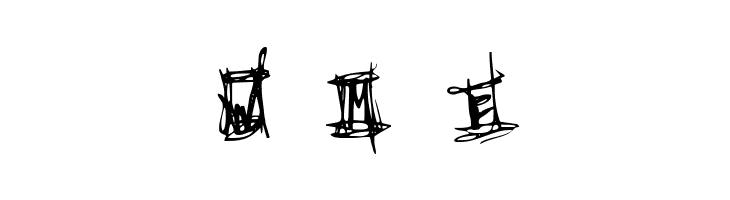
A segmented, digital-style font inspired by LED displays.
A bold, chiseled font with sharp, irregular strokes and a rugged appearance.
A bold, rugged font with angular, hand-chiseled characters.
A bold, geometric font with a three-dimensional, beveled design.
A bold, italicized font styled like domino tiles with dotted patterns.
A dynamic, scribbled font with sharp, angular strokes and irregular forms.
A digital, segmented font inspired by LED displays.
An elegant and refined font with tall, narrow uppercase letters and uniquely styled numerals.
A dynamic, striped font with bold strokes and a modern, energetic style.
A rugged, chiseled font with an angular, handcrafted appearance.
A rugged, chiseled font with sharp, uneven edges for a bold impact.
A bold, chiseled font with jagged edges and an organic, handcrafted feel.
A festive font styled like Christmas lights, perfect for holiday themes.
A bold, cinematic font styled like movie clapperboards.
Eclectic and detailed pictorial dingbats with a whimsical, decorative flair.
A playful, bubble-filled font with bold outlines and a decorative style.
A bold, decorative font filled with intricate spider web patterns.